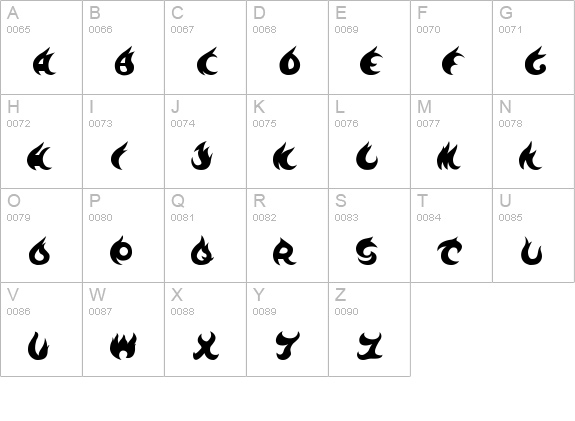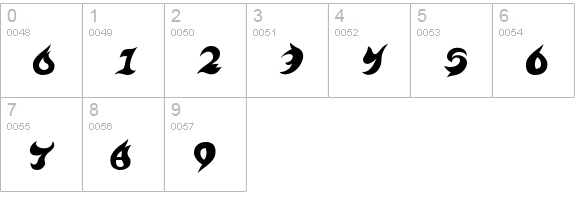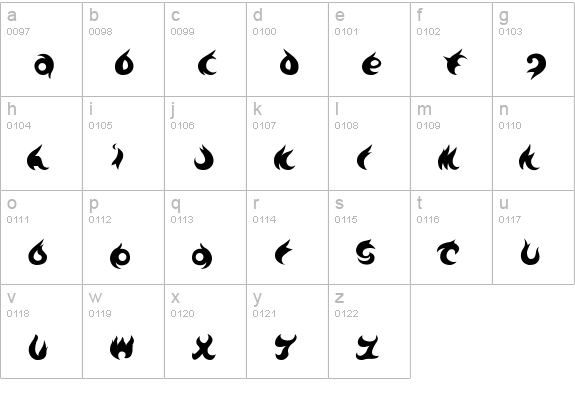
TE-7002 Font Details
TE-7002 font is a modern and stylish typeface that is perfect for adding a touch of sophistication to any design project. With its clean lines and elegant curves, this font is sure to make a statement. Whether you're designing a logo, creating a poster, or crafting a website, TE-7002 font will elevate your designs to the next level. What sets TE-7002 font apart is not only its aesthetic appeal but also its accessibility. It is freely available to download at FontsMarket.com, making it a great choice for designers on a budget or those simply looking for high-quality fonts without breaking the bank. This means that you can create stunning designs without having to worry about additional costs. The versatility of TE-7002 font is another reason why it stands out. It is equally suited for both digital and print applications, ensuring that your designs will look great no matter where they are showcased. The font's legibility and readability also make it a practical choice for various design projects, ensuring that your message is conveyed effectively. Whether you're a professional designer or just starting out, TE-7002 font is a valuable addition to your font library. Its timeless appeal and freely accessible nature make it a must-have for anyone looking to create visually captivating designs. So why wait? Download TE-7002 font today from FontsMarket.com and let your creativity shine.